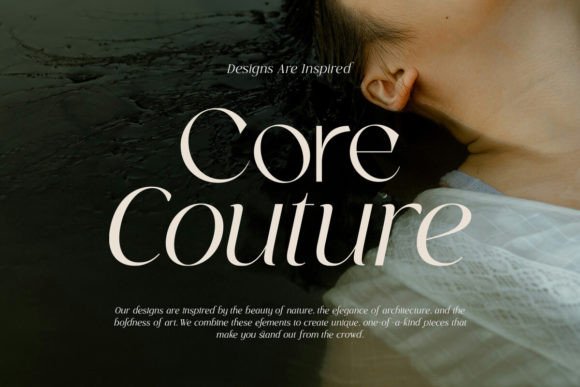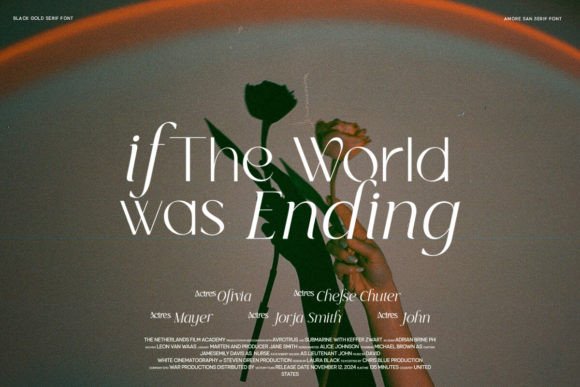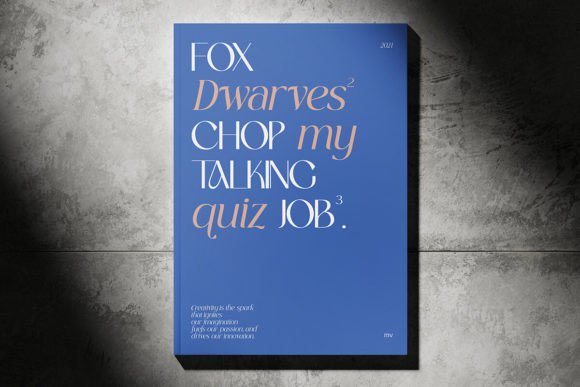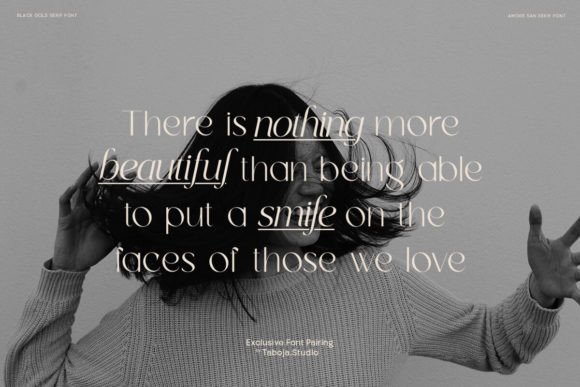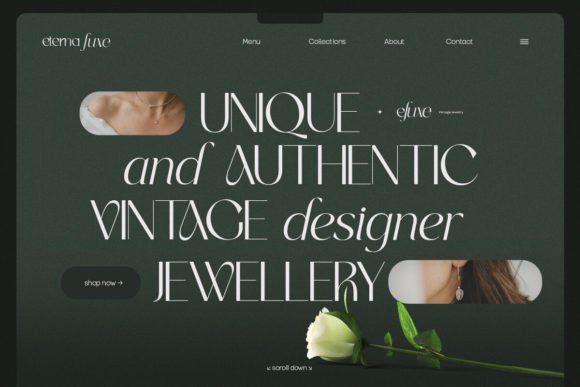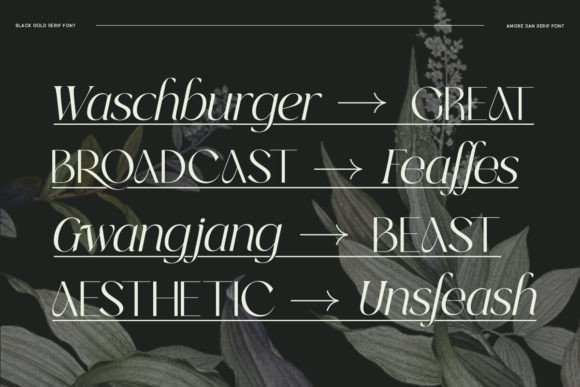
Introducing Flavor Peachy Font: A Harmonious Blend of Modern Simplicity and Classic Elegance
In the world of design, finding the perfect font combination can be a daunting task. However, with Flavor Peachy, designers can now achieve a unique blend of modern simplicity and classic elegance in their projects. This innovative font combination merges the clean lines of Amore sans serif with the sophisticated flair of Black Gold italic serif, creating a visually appealing contrast that is sure to elevate any design.
The Perfect Pairing: Amore Sans Serif and Black Gold Italic Serif
Flavor Peachy is a masterful combination of two distinct font styles. Amore sans serif brings a modern and sleek feel to the table, with its clean lines and minimalist approach. This font is perfect for designers who want to convey a sense of simplicity and sophistication in their work. On the other hand, Black Gold italic serif adds a touch of classic elegance, with its flowing curves and refined features. This font is ideal for designers who want to add a sense of luxury and sophistication to their designs.
When paired together, these two fonts create a harmonious contrast that is both visually appealing and effective. The modern simplicity of Amore sans serif provides a clean and crisp backdrop for the classic elegance of Black Gold italic serif, allowing designers to create designs that are both stylish and professional.
Why Choose Flavor Peachy Font?
So, why should designers choose Flavor Peachy font for their projects? Here are just a few reasons:
- Unique Contrast: Flavor Peachy offers a unique contrast between modern simplicity and classic elegance, making it perfect for designers who want to create visually appealing designs.
- Versatility: This font combination is versatile and can be used in a variety of design projects, from branding and advertising to packaging and editorial design.
- Professional Look: Flavor Peachy font ensures that designs look professional and polished, making it ideal for designers who want to create high-quality work.
- Ease of Use: This font combination is easy to use and can be paired with a variety of other fonts and design elements to create a cohesive look.
How to Use Flavor Peachy Font in Your Designs
Using Flavor Peachy font in your designs is easy. Here are a few tips to get you started:
- Pair with Other Fonts: Experiment with pairing Flavor Peachy font with other fonts and design elements to create a unique look.
- Use for Headings and Body Text: Use Amore sans serif for body text and Black Gold italic serif for headings to create a visually appealing contrast.
Flavor Peachy font is a game-changer for designers who want to create visually appealing and professional designs. This innovative font combination offers a unique blend of modern simplicity and classic elegance, making it perfect for a variety of design projects. With its versatility, ease of use, and professional look, Flavor Peachy font is sure to become a staple in any designer’s toolkit.